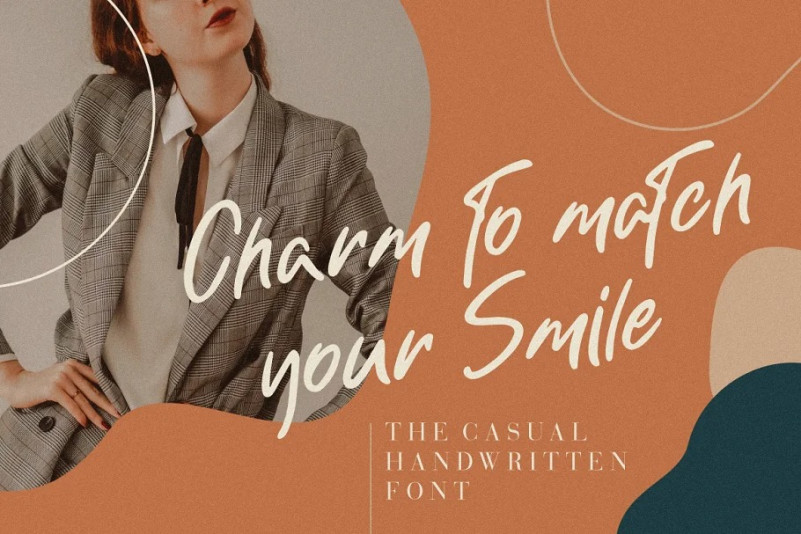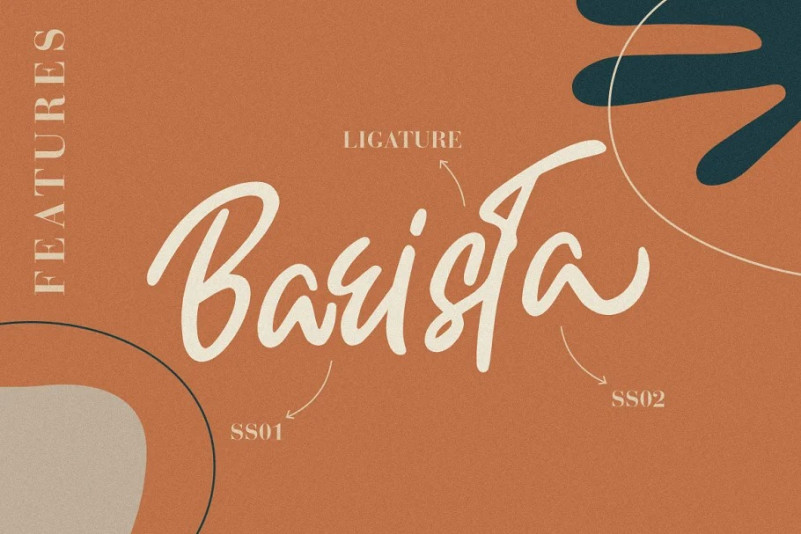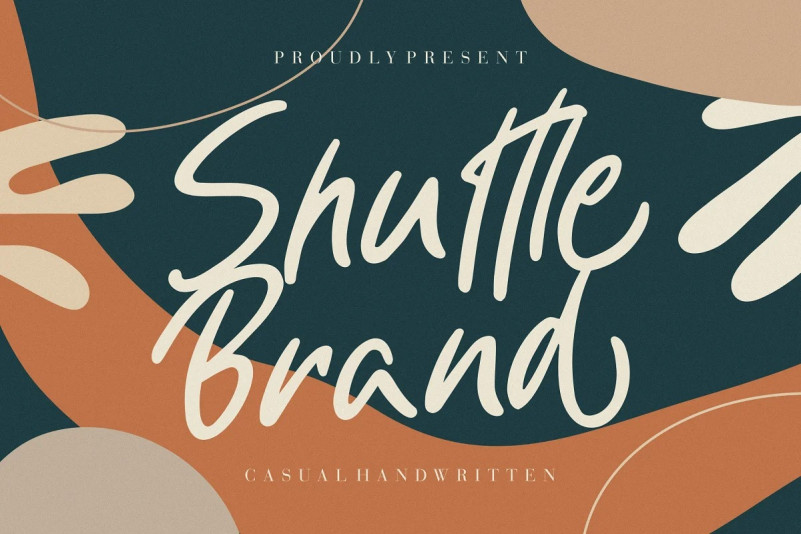
Shuttle Brand Font
Shuttle Brand Script Font – A casual handwritten font looks so natural dan brushy. This font will looks awesome and amazing in many way to your latest project. The font is perfect for for movie title, logo, blogging, brand identity, book title, social media, branding, wedding invites, cards or simply use it in your next design project and suitable to use for many occasion.